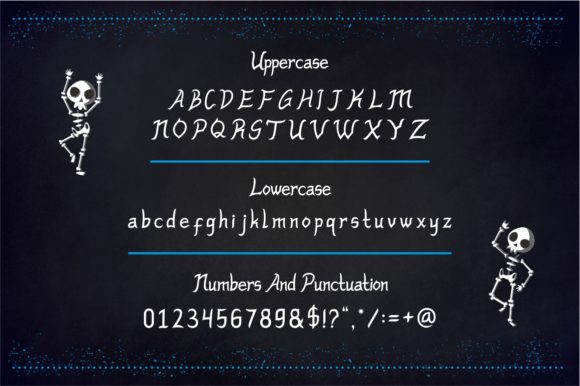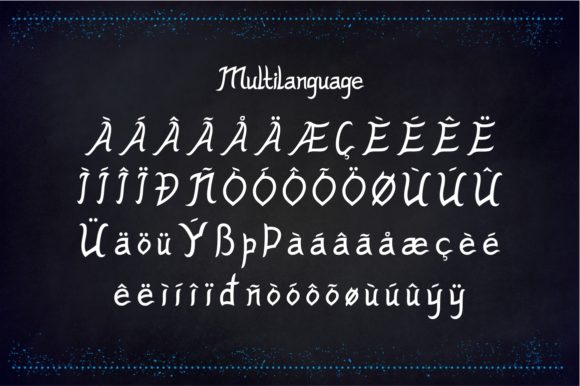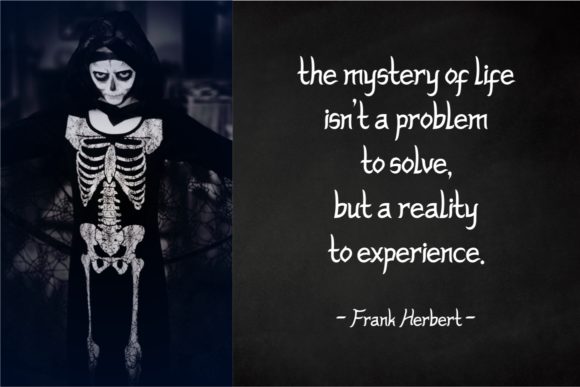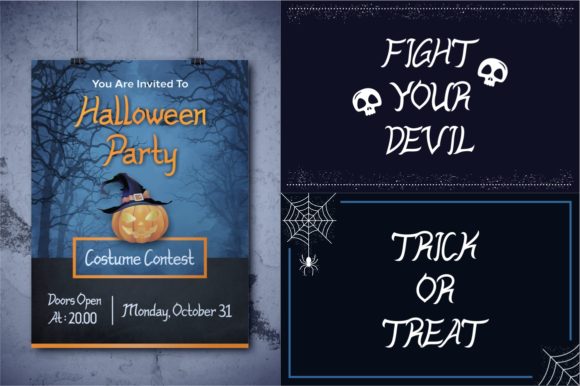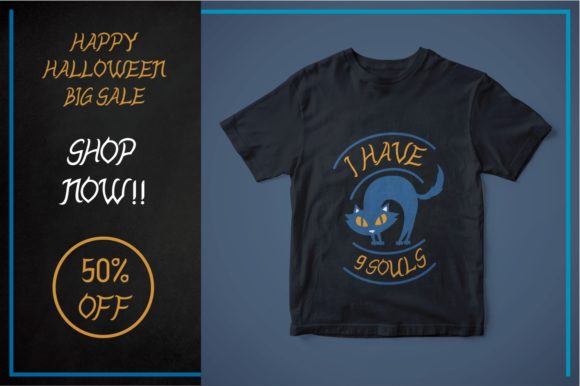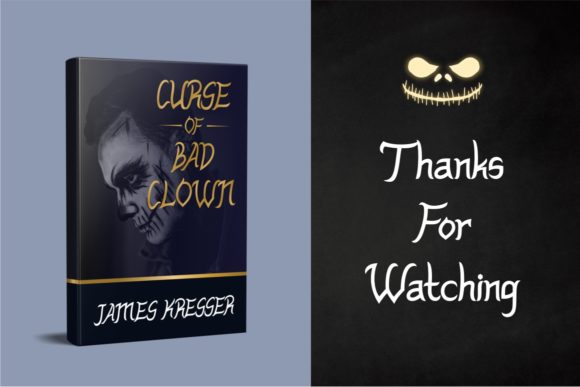
Unleash the Horror: Exploring the Ghost House Font
Are you a designer or crafter looking to add a touch of eeriness to your creations? Look no further than the Ghost House Font, a creepy typeface inspired by Gothic styles and vintage sharp forms. In this article, we’ll dive into the world of Ghost House Font, exploring its features, uses, and benefits for designers and crafters alike.
The Inspiration Behind Ghost House Font
The Ghost House Font is a unique and terrifying typeface that draws inspiration from the darker side of design. Its Gothic roots and vintage sharp forms evoke a sense of eeriness and foreboding, perfect for creating a horror ambiance in your designs. Whether you’re working on a logo, poster, or clothing design, Ghost House Font is sure to make a lasting impression.
Key Features of Ghost House Font
- Creepy and Distorted Letters: The Ghost House Font features creepy and distorted letters that are sure to send chills down the spine. Its unique design makes it perfect for horror-themed designs, Halloween party invitations, and other spooky projects.
- Gothic and Vintage Inspiration: The font’s Gothic and vintage inspiration gives it a timeless and classic look that’s perfect for designers and crafters looking to add a touch of elegance to their creations.
- Highly Versatile: Ghost House Font is highly versatile and can be used for a wide range of design projects, including logos, posters, clothing, branding, and more.
Uses of Ghost House Font
Ghost House Font is perfect for designers and crafters who want to add a touch of horror to their creations. Here are some of the many uses of this creepy typeface:
- Logos and Branding: Use Ghost House Font to create a memorable and terrifying logo for your business or brand.
- Posters and Flyers: Create eye-catching posters and flyers for horror movies, Halloween parties, or other spooky events.
- Clothing and Apparel: Design creepy and unique clothing and apparel for horror fans and enthusiasts.
- Social Media Graphics: Use Ghost House Font to create engaging and eerie social media graphics that are sure to grab attention.
Benefits of Using Ghost House Font
So why choose Ghost House Font for your design projects? Here are some of the benefits of using this creepy typeface:
- Unique and Eye-Catching: Ghost House Font is a unique and eye-catching typeface that’s sure to make your designs stand out.
- High-Quality Design: Ghost House Font is designed with high-quality and precision, ensuring that your designs look professional and polished.
Tips for Using Ghost House Font
Here are some tips for using Ghost House Font in your design projects:
- Use it Sparingly: Use Ghost House Font sparingly to create a greater impact. Too much of a good thing can be overwhelming.
- Experiment with Colors: Experiment with different colors and textures to create a unique and eerie effect.
- Pair it with Other Fonts: Pair Ghost House Font with other fonts to create a unique and visually appealing design.
| Font Name | Ghost House Font |
| Author | Strangertype |
In conclusion, Ghost House Font is a creepy and unique typeface that’s perfect for designers and crafters looking to add a touch of horror to their creations. With its Gothic and vintage inspiration, highly versatile design, and ease of use, Ghost House Font is sure to become a go-to font for horror-themed designs. So why wait? Download Ghost House Font today and unleash the horror in your designs!